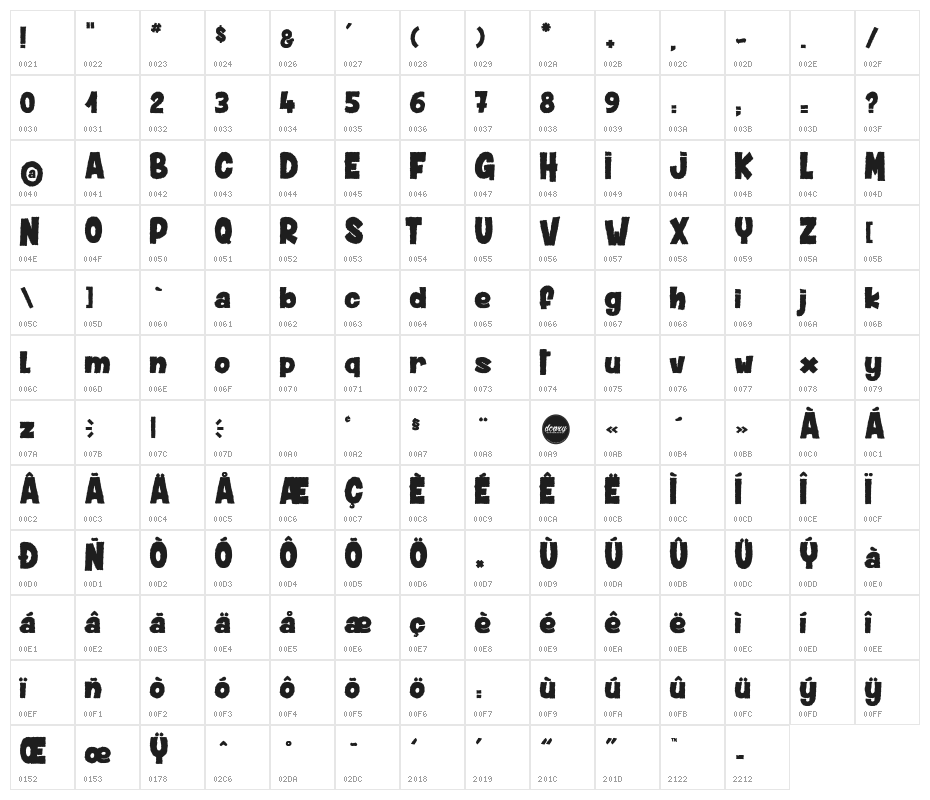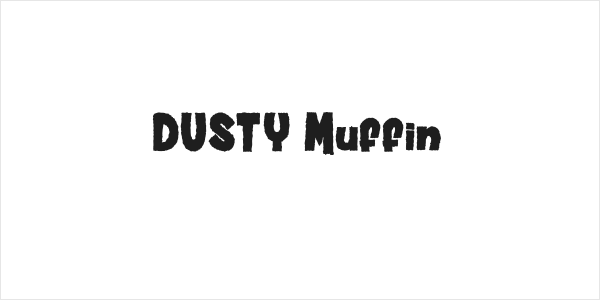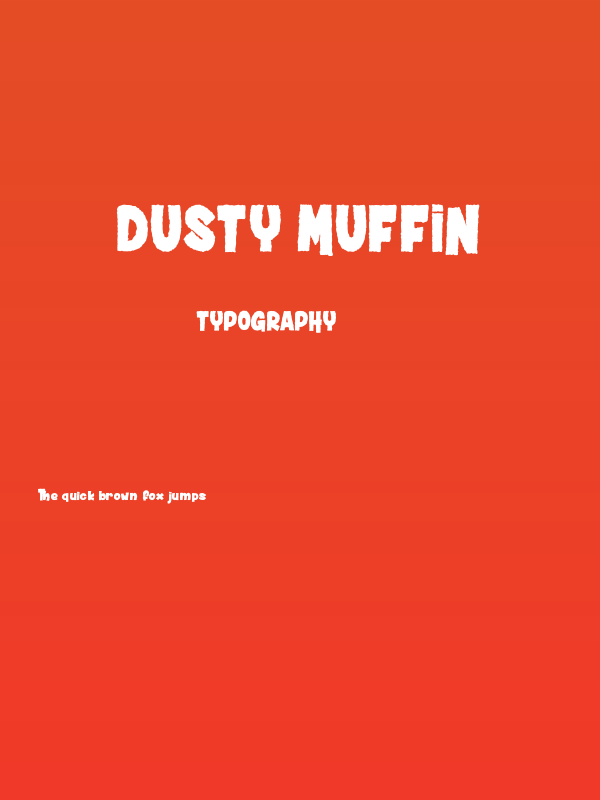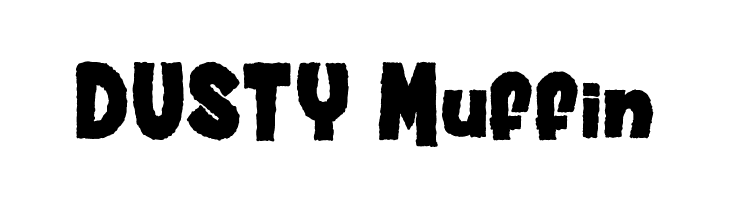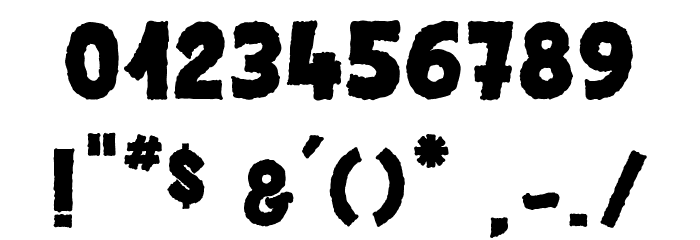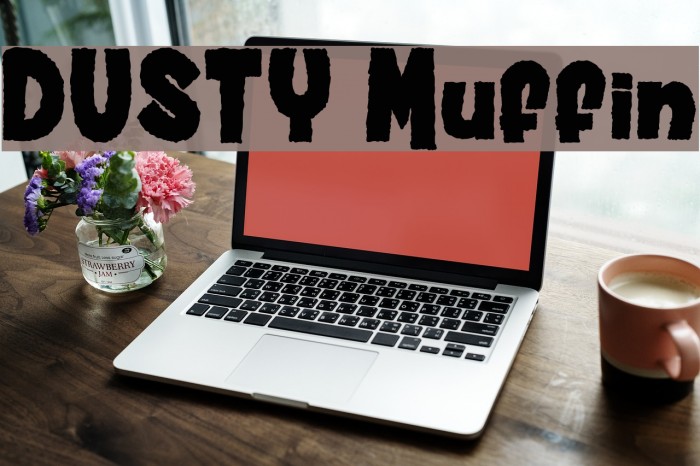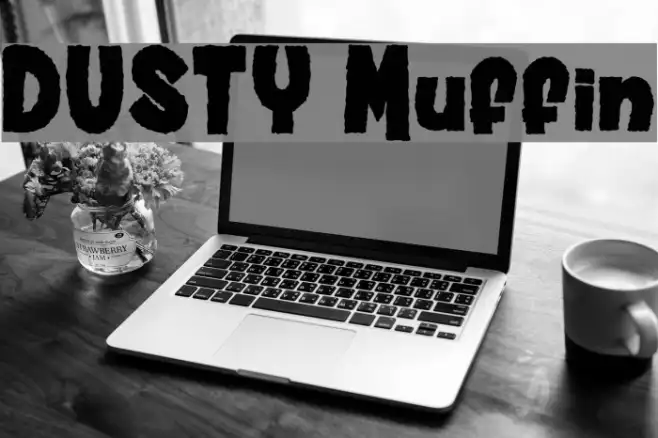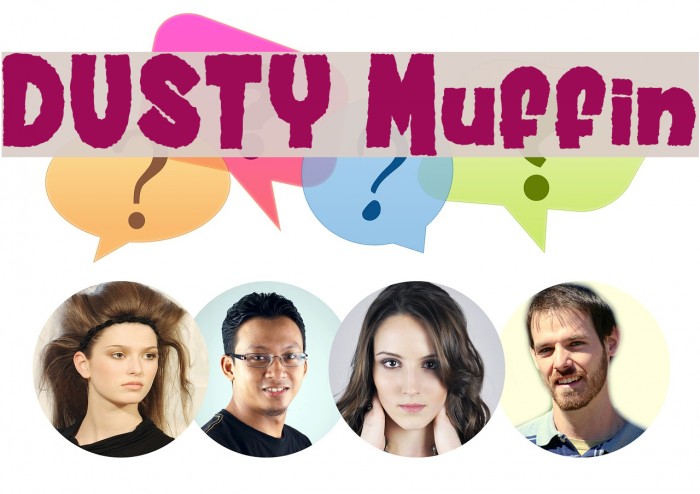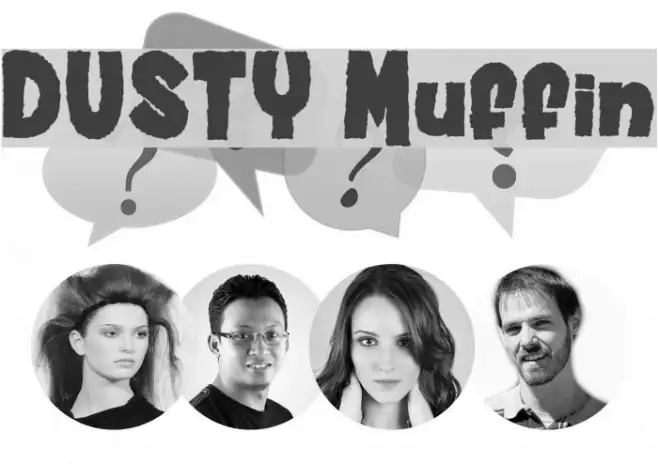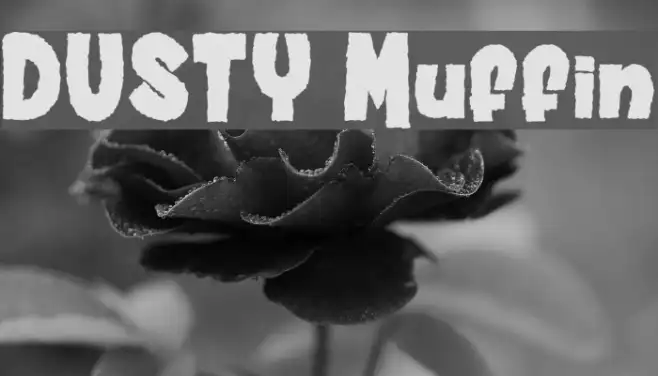
DUSTY Muffin Font
DUSTY Muffin Description
This font features a bold and rugged style with a hand-painted appearance. The characters have a distressed texture, giving them a vintage and organic feel. The uppercase and lowercase letters maintain a consistent thickness, while the numbers and special characters follow the same textured design. The overall look is playful yet strong, making it ideal for projects that require a touch of personality and uniqueness. The font's uneven edges and bold strokes contribute to its distinctive character, making it stand out in any design.
| Proposed Projects | Ideal for posters, branding, packaging, and any design needing a bold, vintage touch. |